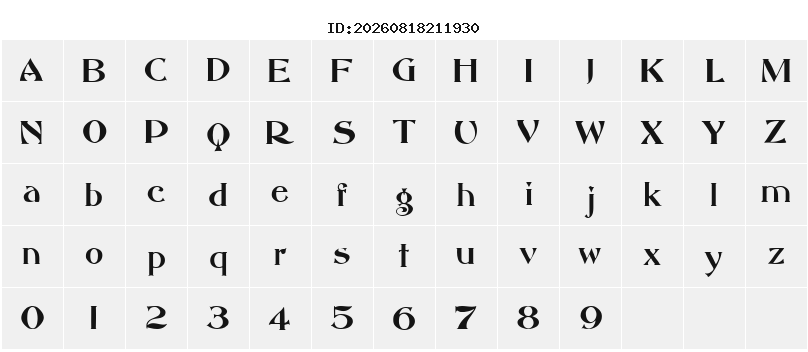
SirRobin Rounded Preview
• Font Name: SirRobin Rounded
• Full Font Name: SirRobin Rounded
About SirRobin Rounded.ttf
SirRobin Rounded.ttf is a modern, elegant sans-serif font designed for ultimate readability and visual harmony. Perfect for branding, headlines, web design, and print materials.